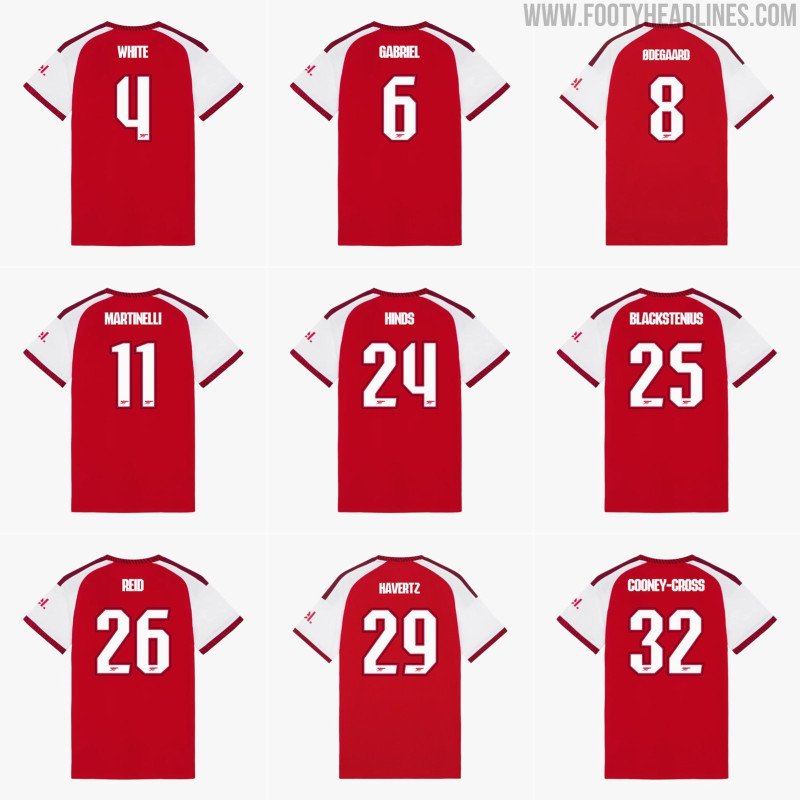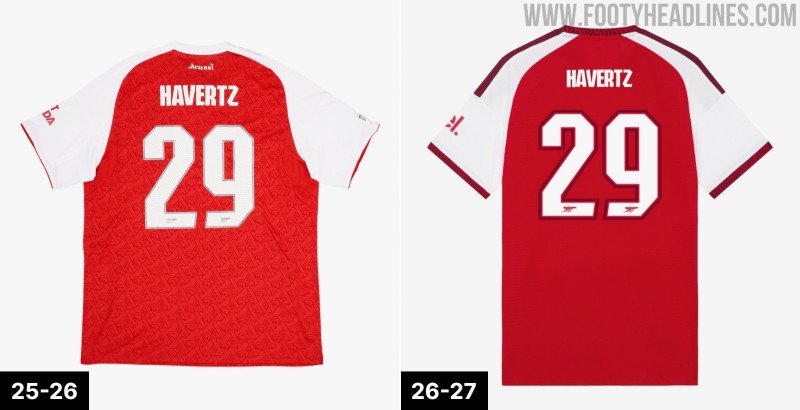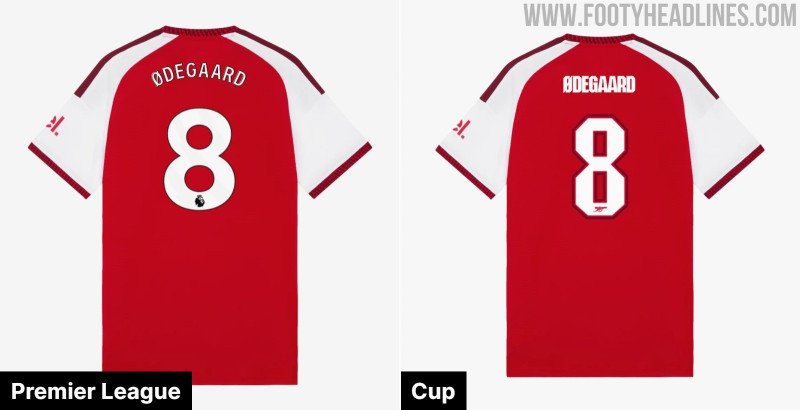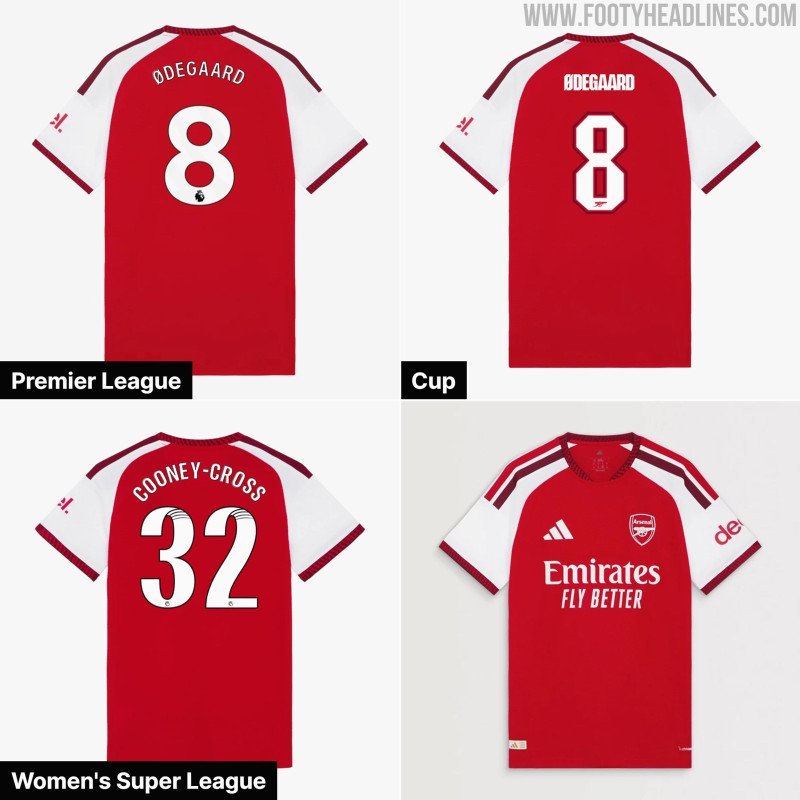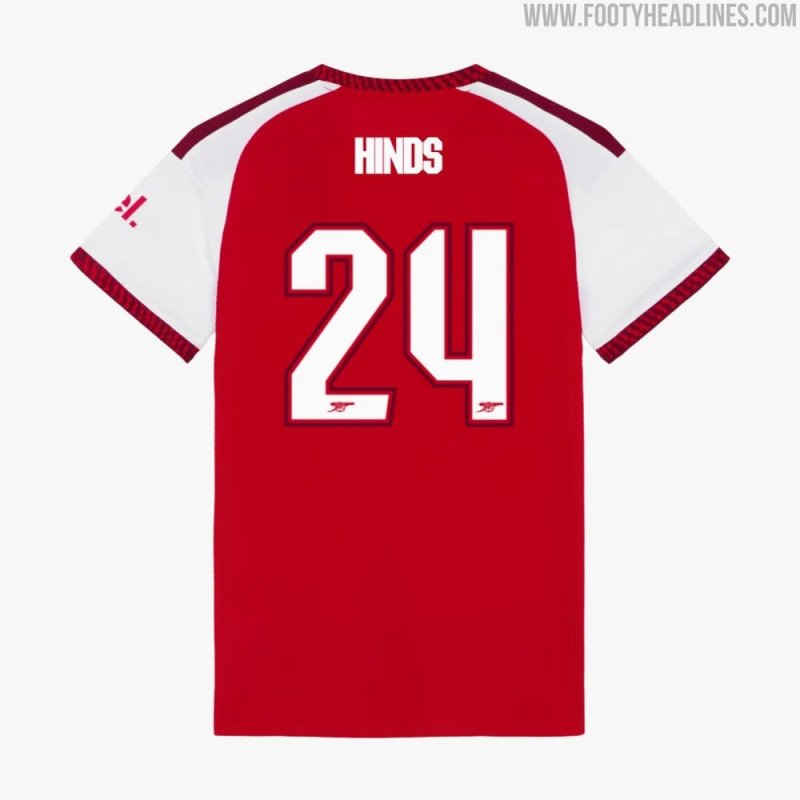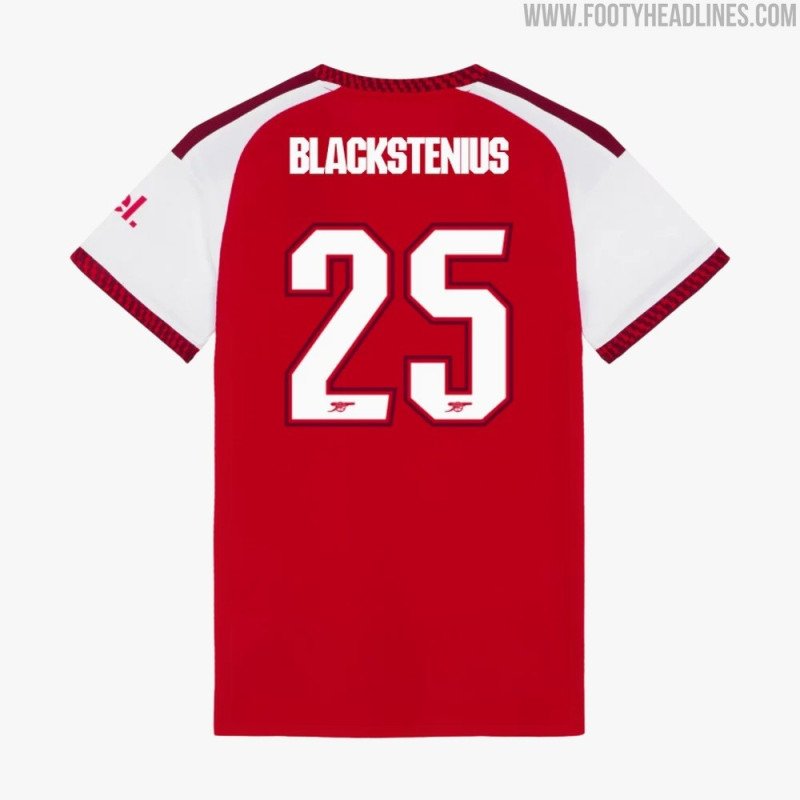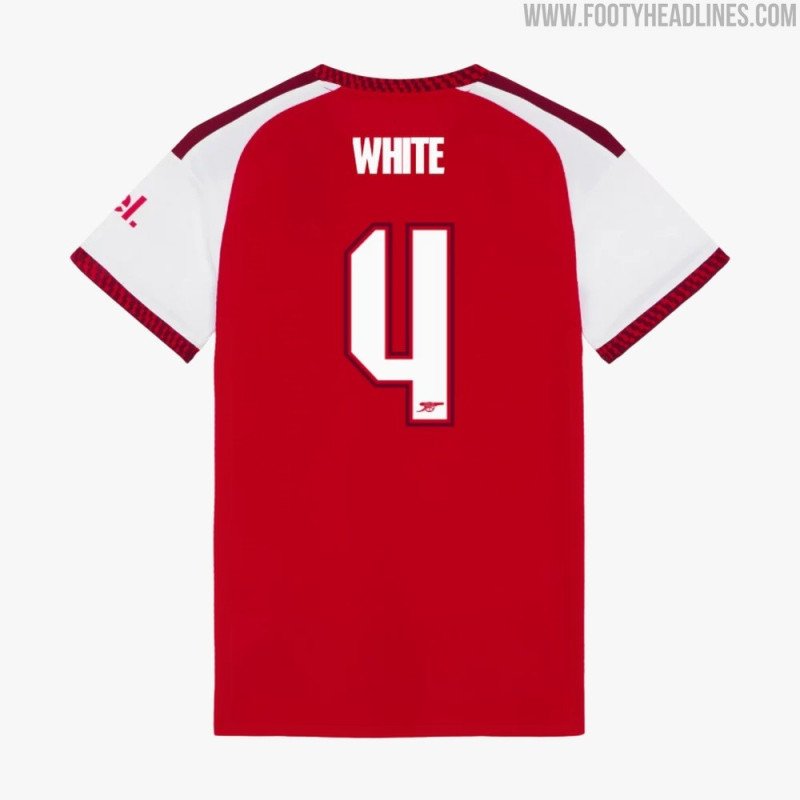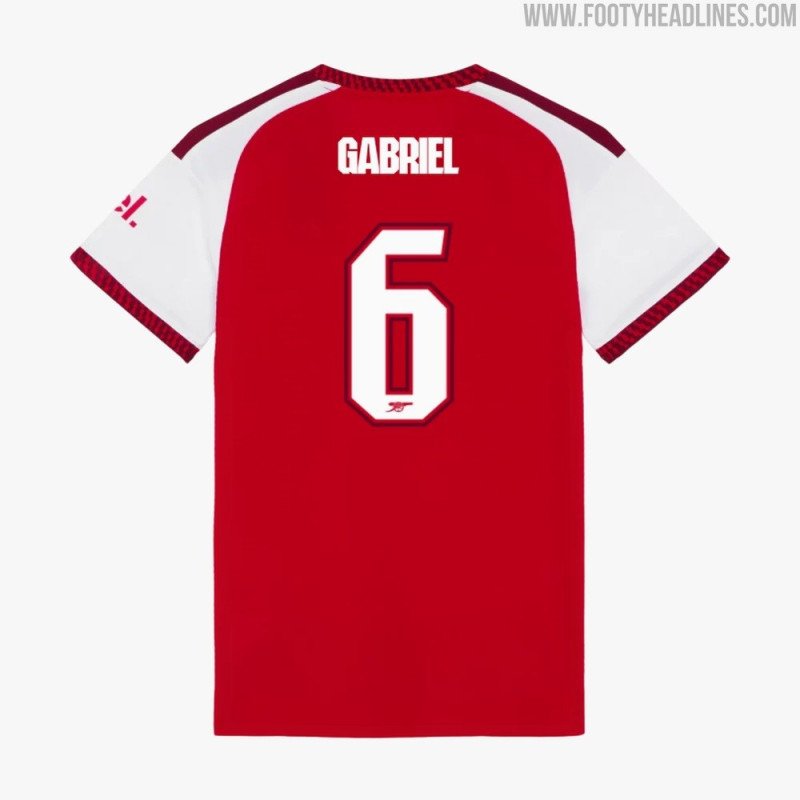
Arsenal will continue to use their bespoke cup kit font for the upcoming 2026-2027 season, making only a minor visual update to its color scheme.
This custom typography, which is typically worn during non-league competitions such as the Champions League and domestic cups, retains its sharp, modern aesthetic and the signature cannon detailing located at the base of each numeral.
The only difference for the new campaign lies in the application of colors to the names and numbers. During the 2025-2026 season, the font was rendered in solid white with grey detailing. For the 2026-2027 kit, Adidas has updated the application by adding a thick, red & dark red outline around both the lettering and the numbering.
Indeed, the colorway matches the duo-color 3 stripes of the kit, which also has two shades of red.